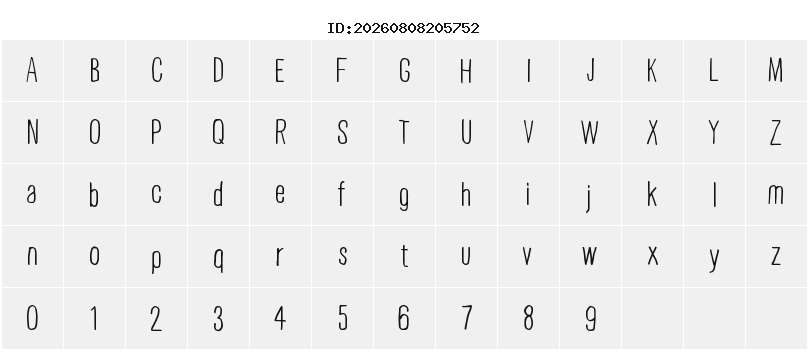
• Font Name: Plain Old Handwriting
• Full Font Name: Plain Old Handwriting
• Version: Version 1.00 June 22, 2014, initial release
About Plain Old Handwriting.ttf
Plain Old Handwriting.ttf is a modern, elegant sans-serif font designed for ultimate readability and visual harmony. Perfect for branding, headlines, web design, and print materials.